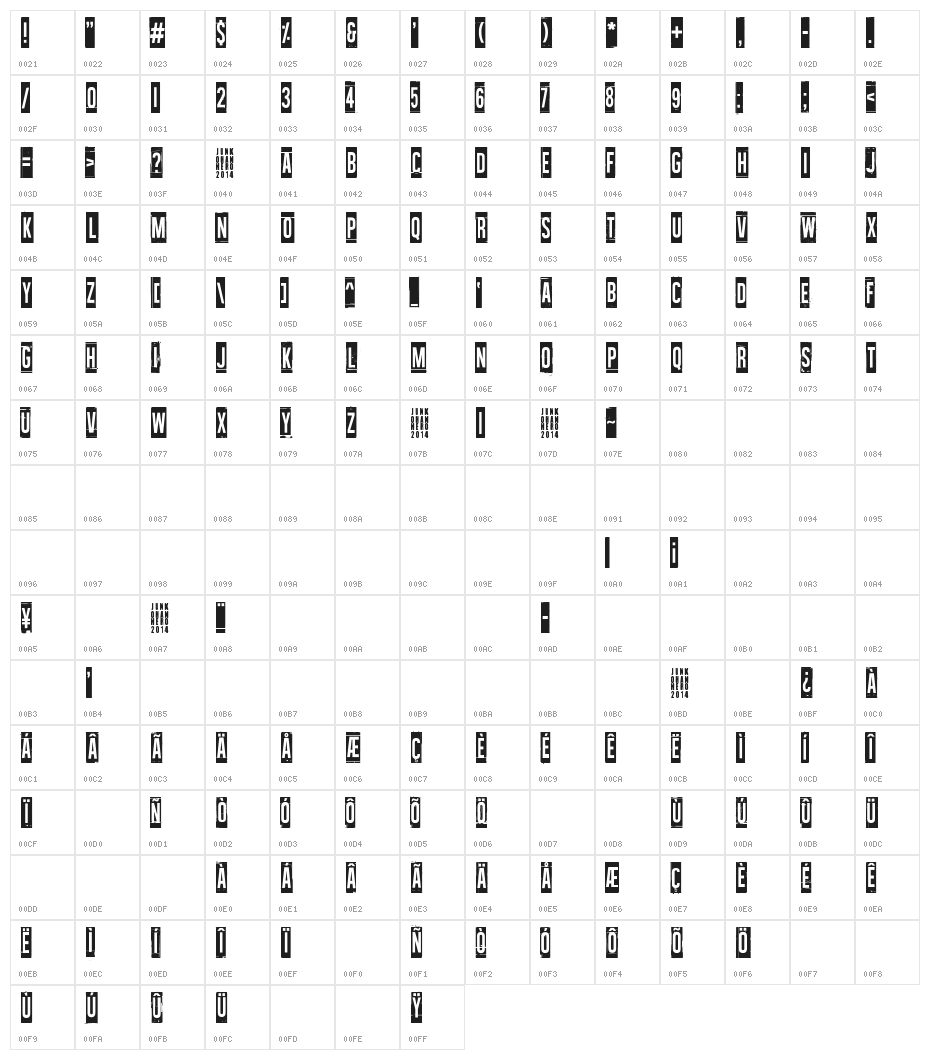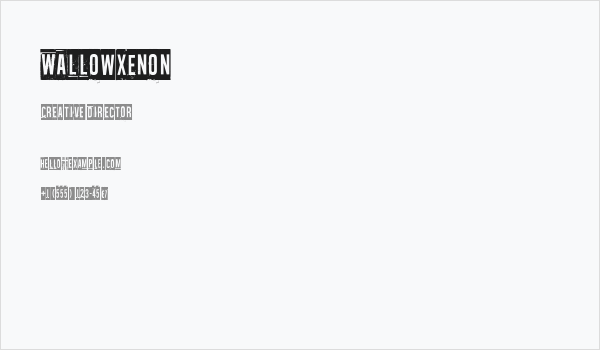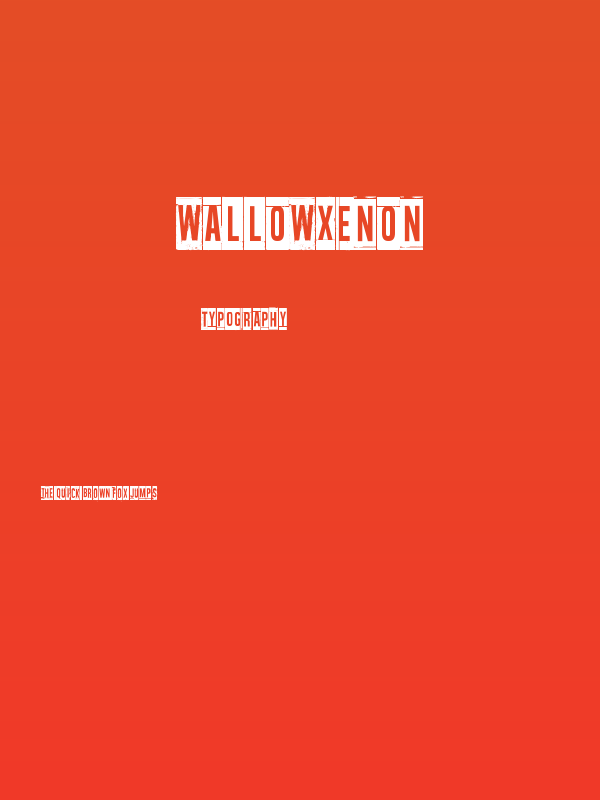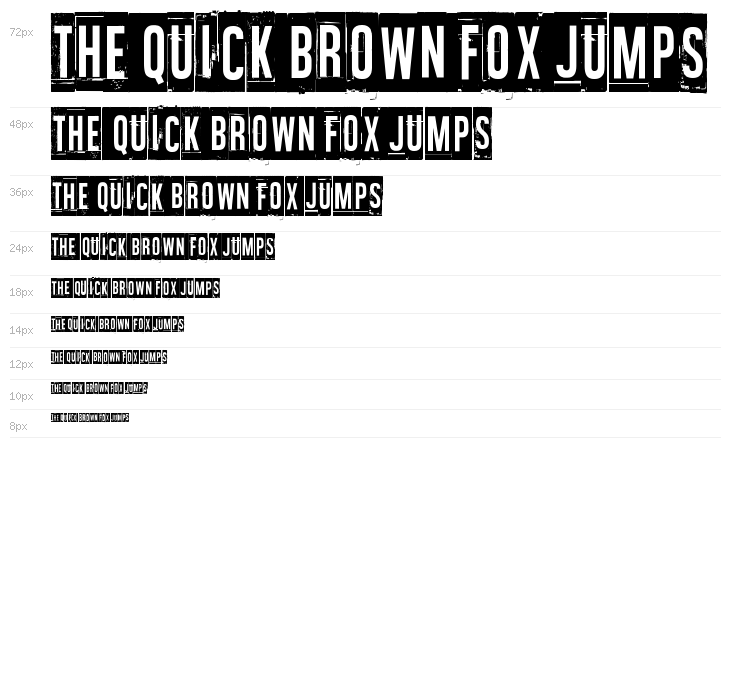
Wallowxenon Font
Wallowxenon Description
This font features a bold, distressed style with a strong industrial feel. Each character is enclosed in a rectangular block, giving it a stamped appearance. The letters are uppercase and maintain a consistent height, while the distressed texture adds a rugged, vintage touch. The numbers and special characters follow the same design, ensuring uniformity across all elements. The font's boldness and unique texture make it stand out, ideal for projects that require a strong visual impact.
| Proposed Projects | Ideal for posters, album covers, branding, and any design needing a bold, vintage aesthetic. |